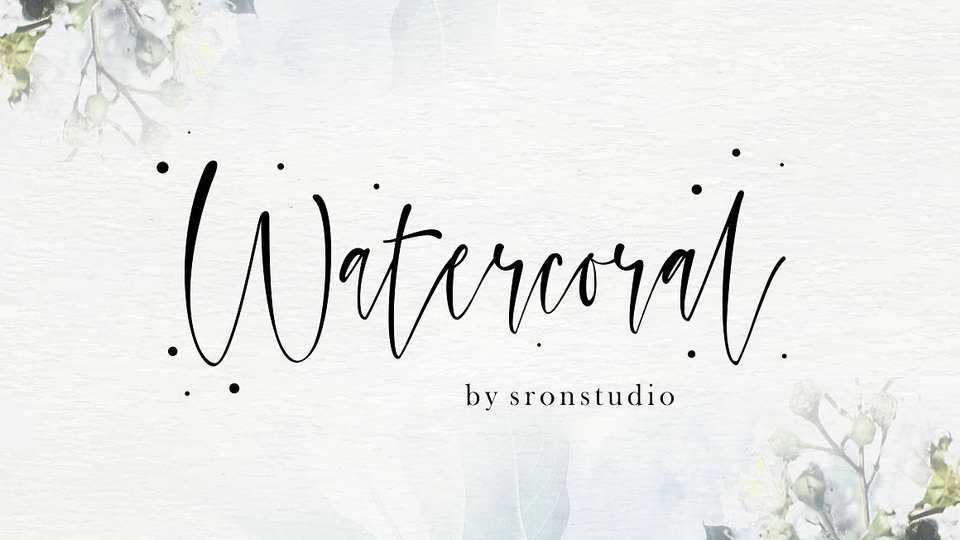
Download Watercoral font, a beautiful handwritten font very suitable for your watercolor design. This font is also suitable for a project that requires fonts with natural and handlettered effects.
Designer: Sronstudio